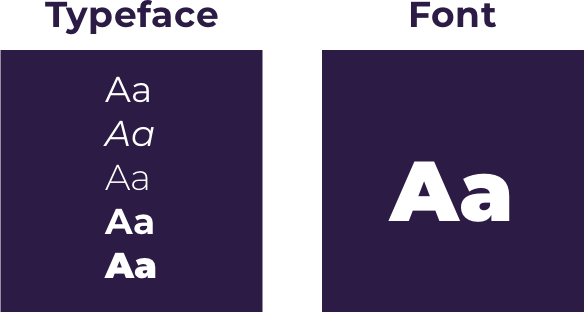
The words “typeface” and “font” are typically thought of as synonymous, but they actually refer to different things. ‘written material in a variety of fonts and formats’;
List Of Android Typeface Vs Font Family With New Ideas, The terms are always used loosely even by designers, so i wanted to explain the actual difference between a font and a typeface. Fonts, on the other hand, are the style, effect, or weight of a typeface.
So, when we say that a font is installed, we mean that the file exists in the designated location for the system. A set of type of one particular face and size. Each font has a specific condensation, italicization, width, etc. For example, arial is a typeface, but arial regular 14 point is a font.
Android Font Family A typeface (also known as font family) is a set of characters that share common design features.
That’s what a font is: To put it simply, each typeface variant is a font. In a layman’s term, it can be called as a subset of a typeface. Arial bold 20 point is another font.
A font is a specific size, style, weights, widths of a particular typeface. Hence, there are many different fonts based on a single Arial, for example, is a typeface. Fonts, on the other hand, are the style, effect, or weight of a typeface. What Is Typography? A Full Rundown.
And a “font family” represents a collection of related fonts, such as bold and italic variations of the same “typeface” or “font”. Fonts with a common design made up a typeface. Fonts, on the other hand, are the style, effect, or weight of a typeface. In the resource type list, select font, and then click ok. Your Ultimate Guide to Fonts and Typography Visual Composer Website.
What font does apple use? While a typeface describes a particular style of lettering, a font refers to variations of a typeface, like its size and weight. So fonts were divided by size and upper and lowercase, each was a different font. The difference between a font and a typeface has its roots in the history of printing. Custom Font Family in Android Jetpack Compose by Muhammad Danish.
While a typeface describes a particular style of lettering, a font refers to variations of a typeface, like its size and weight. The new resource directory window appears. Fonts with a common design made up a typeface. A font, on the other hand is the way a typeface is styled. How to change TextView font and font family in Android.
Arial bold 20 point is another font. Each font was a matched set of type, with a piece (a ) for each glyph, and a typeface consisting of a range of fonts that shared an overall. The term font refers to the specific weight, size, and width of a typeface. A typeface is like a family of selected fonts. Minecraft font Minecraft Regular 1.000;UKWN;MinecraftRegular.
With a font family like freight, you don’t really need any other typeface to create hierarchy as well as visual interest. In comparison, font refers to a particular weight, width, and style within that typeface. The difference between a font and a typeface has its roots in the history of printing. A font, on the other hand is the way a typeface is styled. Custom Font Family in Android Jetpack Compose by Muhammad Danish.
The resulting typeface object can be queried (getstyle()) to discover what its real style characteristics are. Pandas how to find column contains a certain value recommended way to install multiple python versions on ubuntu 20.04 build super fast web scraper with python x100 than beautifulsoup how to convert a sql query result to a pandas dataframe in python how to write a pandas dataframe to a.csv file in python A set of type of one particular face and size. A typeface is a particular set of glyphs or sorts (an alphabet and its corresponding accessories such as numerals and punctuation) that share a common design. What Is Typography, And Why Is It Important? (2020 Guide).
Every variation of a typeface—indicating a different size, weight, or style—is a different font. A font is a particular set of glyphs within a typeface. With a font family like freight, you don’t really need any other typeface to create hierarchy as well as visual interest. A font, on the other hand is the way a typeface is styled. Typeface vs. Font What Is the Difference Between Them?.
A font is a particular weight, style, size and effect of a typeface. The main difference between these two terms is that a typeface (or type family) is the name of a specific collection of related fonts. A typeface (also known as font family) is a set of characters that share common design features. A typeface is a set of characters or letters that share a typical design pattern, basic shapes that make up the structure for that particular typeface. How to set default font family for entire Android app Stack Overflow.
A Typeface (Also Known As Font Family) Is A Set Of Characters That Share Common Design Features.
It is a set of one or more fonts each composed of glyphs that share common design features. A typeface is a set of characters or letters that share a typical design pattern, basic shapes that make up the structure for that particular typeface. A typeface refers to the entire collection/family of font designs (style, weight, variation). In comparison, font refers to a particular weight, width, and style within that typeface.